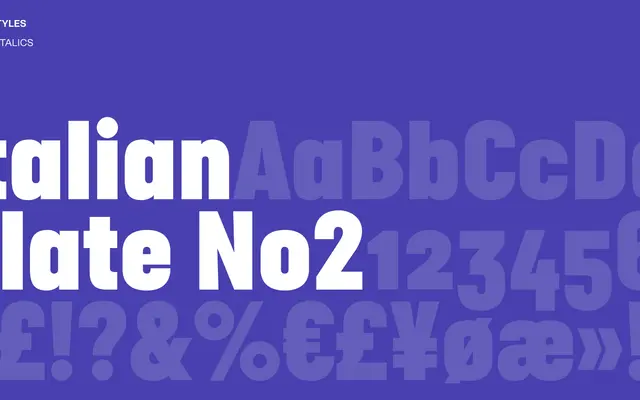
Italian Plate No2
A grotesque sans inspired by Italian automotive number plate lettering, with a mid-century European industrial character.
Drawn from the letterforms found on Italian vehicle registration plates, this typeface carries the utilitarian clarity of mid-century European industrial type. The reference to car plate lettering gives it a specific vernacular anchor that separates it from generic grotesques. Works well in editorial and branding contexts where a restrained but characterful sans is needed.
The name and visual reference to Italian car plate lettering places this squarely in the grotesque sans-serif tradition, drawing on mid-century European industrial letterforms.